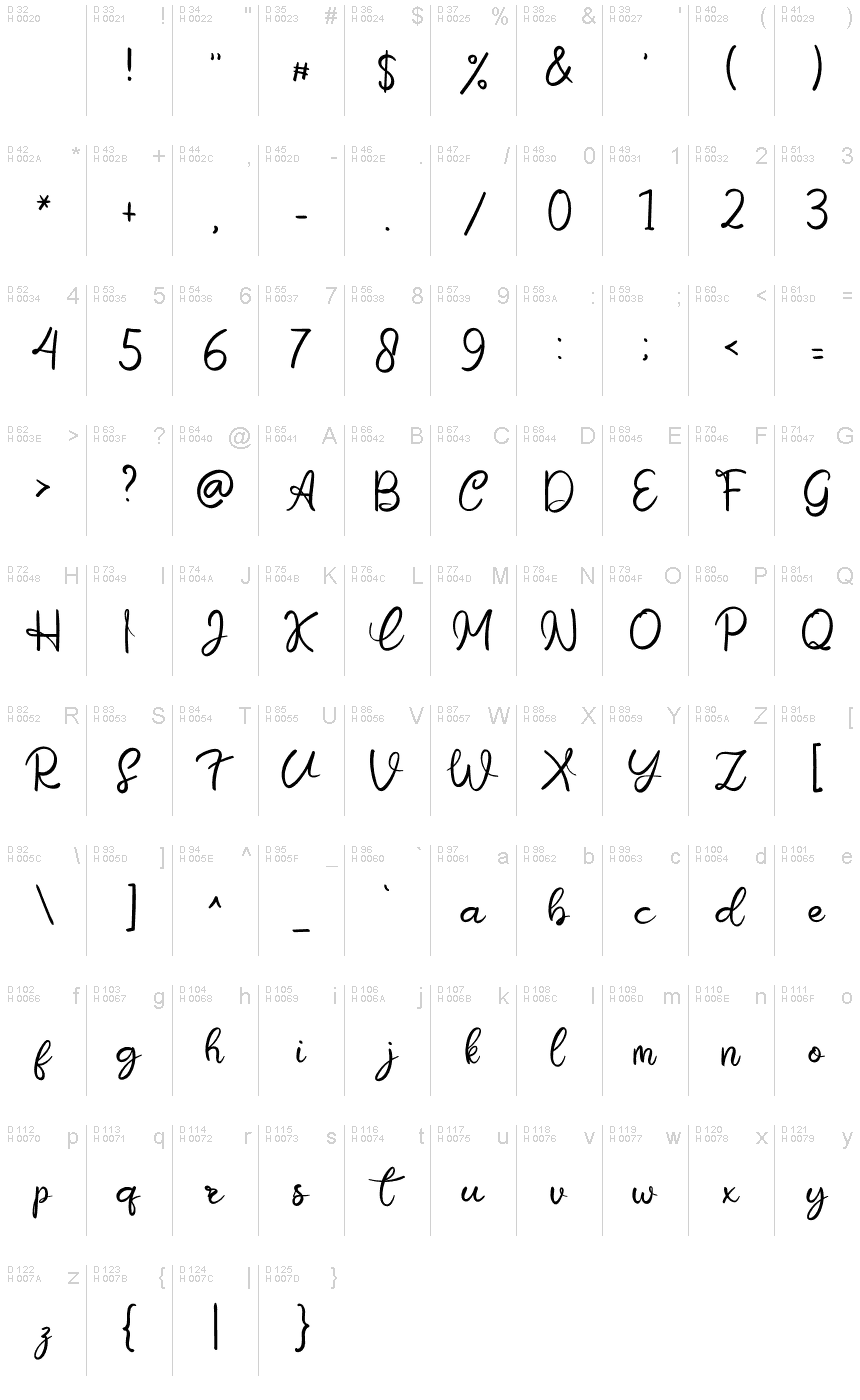
The Snowball
The Snowball font is a nice handwritten typeface designed by Kateeng Ciu.
This font retains a classy calligraphic influence while feeling contemporary and fresh. This versatility will attract a wide range of creative ideas, from letterheads and titles to stationery.